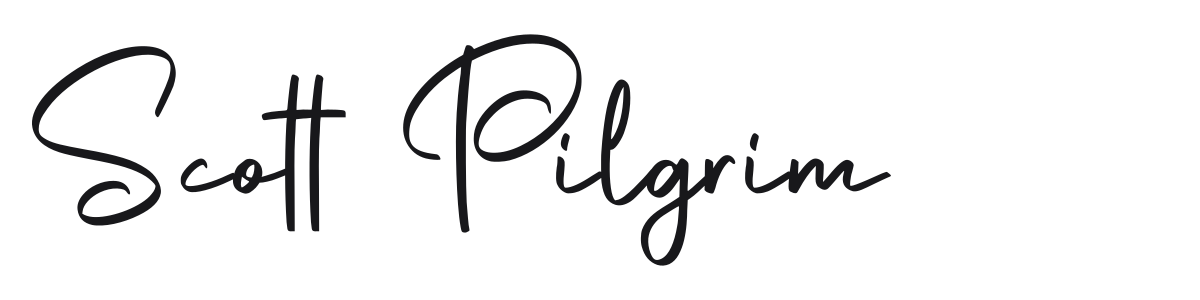
Scott Pilgrim
Scott Pilgrim is a casual handwritten script with a loose, flowing energy that feels like a confident pen on paper. The connected strokes and gentle baseline rhythm give it an effortlessly natural quality without feeling sloppy. It works well in branding, packaging, and editorial contexts where warmth and personality matter.